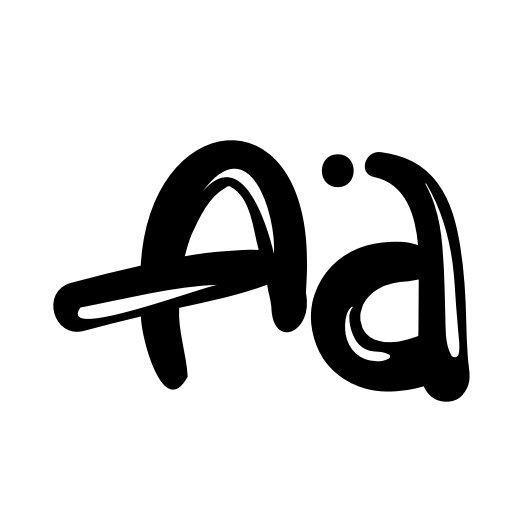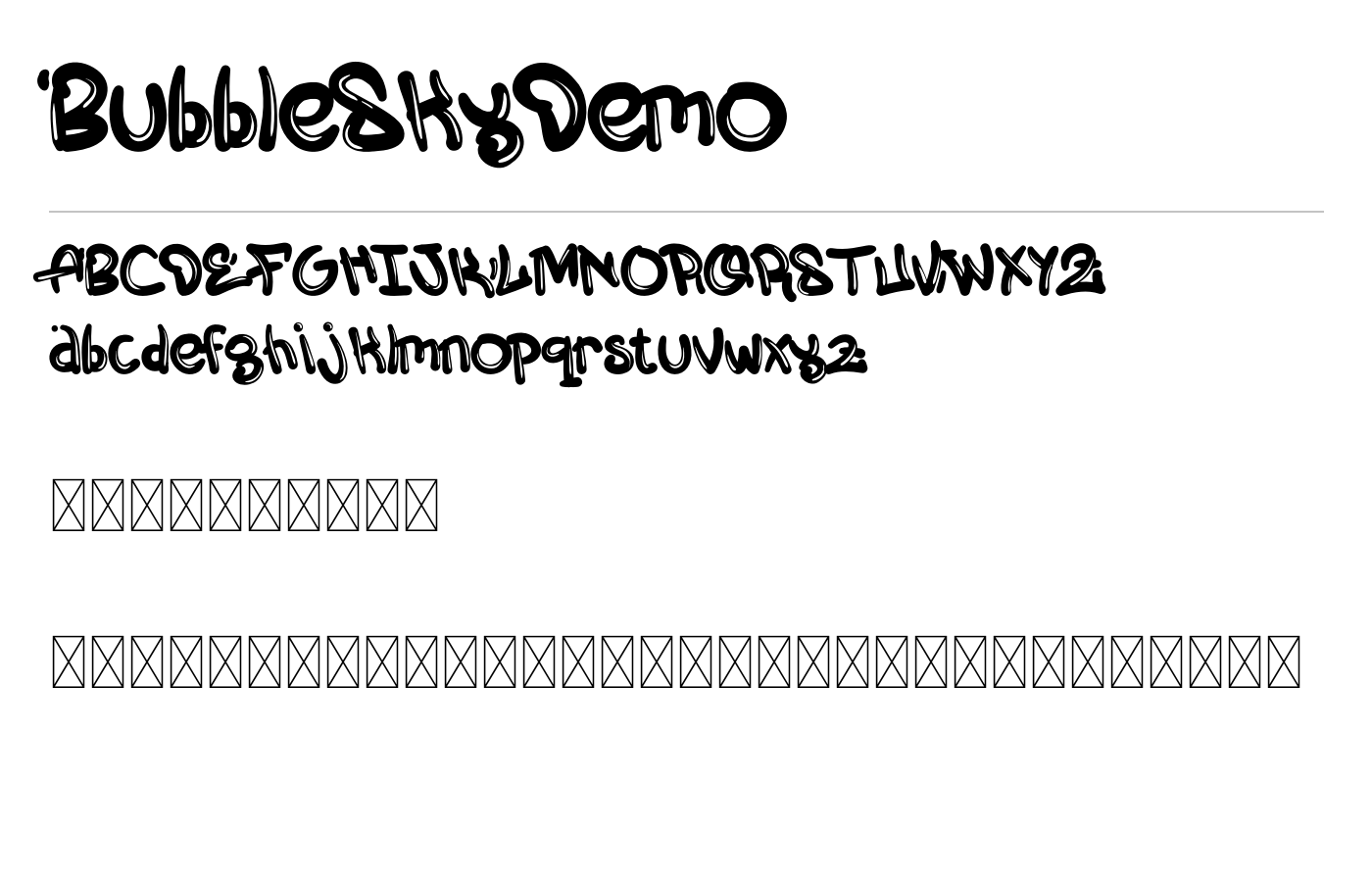
BubbleSkyDemo is a playful and quirky handwritten font featuring bold, rounded strokes that create a bubbly, informal feel. Its uneven, lively letterforms and strong personality make it perfect for fun, casual designs such as children’s books, party invitations, or creative branding that wants to convey energy and whimsy. This font stands out best in display uses where its unique charm can shine.
BubbleSkyDemo Font
About BubbleSkyDemo Font
| Font family | BubbleSkyDemo Font |
| Designer | Esa Prasetio Nugroho |